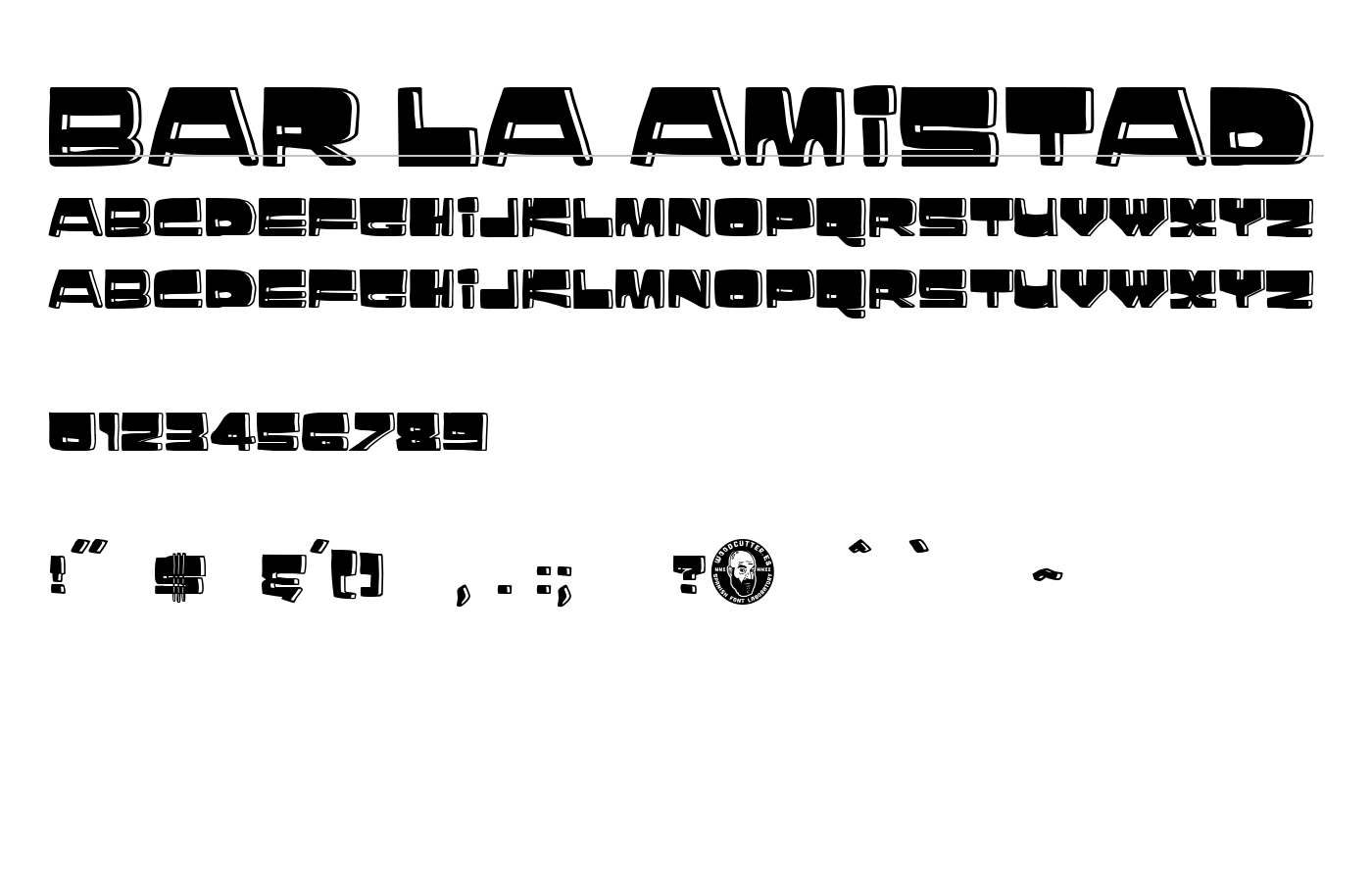
Bar La Amistad is a bold, playful sans-serif font characterized by its quirky, blocky letterforms with uneven stroke widths and a slightly distorted, hand-crafted feel. Its heavy weight and irregular shapes give it a lively, informal personality, making it perfect for creative branding, eye-catching posters, and fun editorial projects where a unique and energetic vibe is desired. This font works best in display use, adding a distinctive and memorable touch to designs that aim to stand out with character and charm.
Bar La Amistad Font
About Bar La Amistad Font